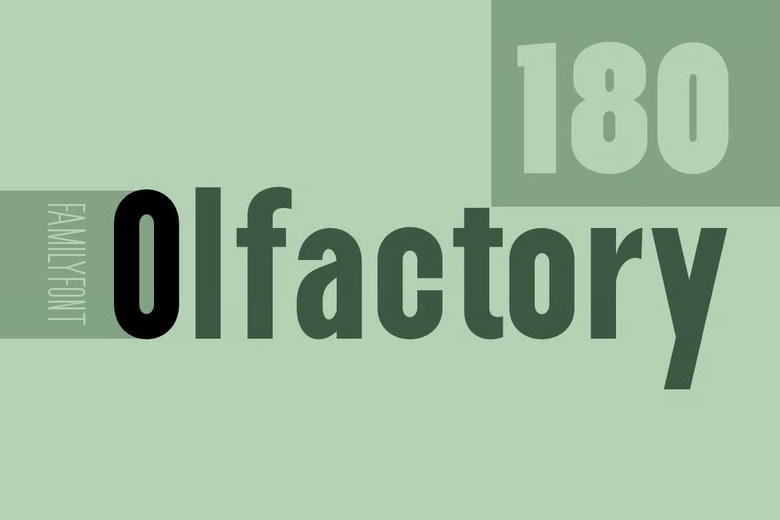
Olfactory Font
Olfactory is a flexible sans serif typeface family that brings a clean and modern look to many different uses. With 180 fonts, it offers a wide range of widths and weights, so designers have plenty of options for projects like branding, editorial work, ads, packaging, posters, websites, and digital interfaces.
The Olfactory family includes widths from Ultra Condensed to Ultra Expanded. Each width comes in 10 weights, from Thin to Extra Black, and is available in both Upright and Italic styles.
Olfactory Sans Serif Font Family